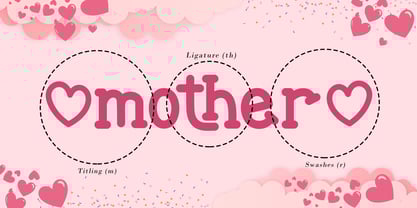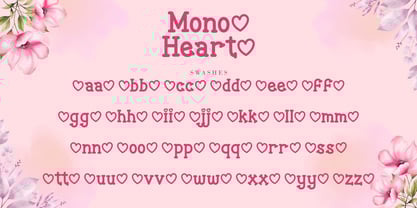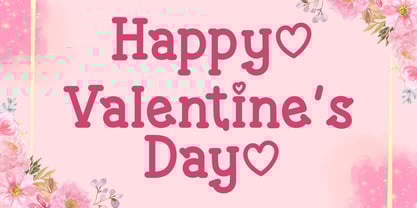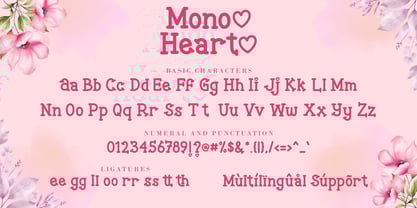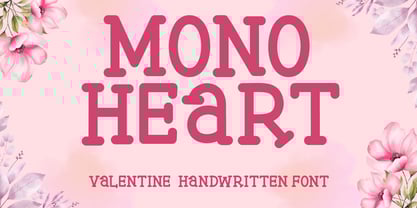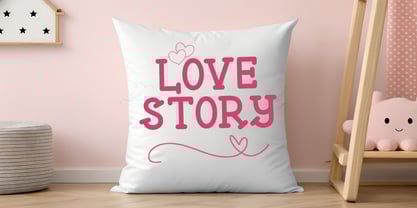
Monoheart
by AEN Creative Studio
The Monoheart Font Family was designed by Agung Eko Nugroho and published by AEN Creative Studio. Monoheart contains 2 styles and family package options.
Monoheart is a soft and playful handwritten font created especially for love-inspired designs. With its relaxed handwriting style and smooth curves, Monoheart brings a warm and romantic atmosphere to any project. This font works perfectly for Valentine cards, wedding stationery, love quotes, journals, and social media graphics. Its handwritten character makes your designs feel authentic, while the playful shapes keep the look light and cheerful. Monoheart is also great for crafting projects, labels, and business branding. From Valentine designs to everyday creative projects, Monoheart offers flexibility and charm in one font. It’s a great choice for designers, crafters, and small business owners who want a handwritten font that feels playful, heartfelt, and timeless.
Designers: Agung Eko Nugroho
Publisher: AEN Creative Studio
Foundry: AEN Creative Studio